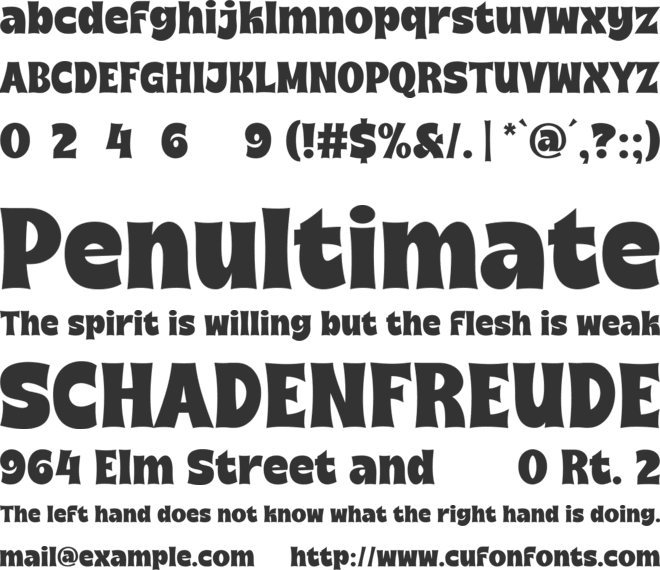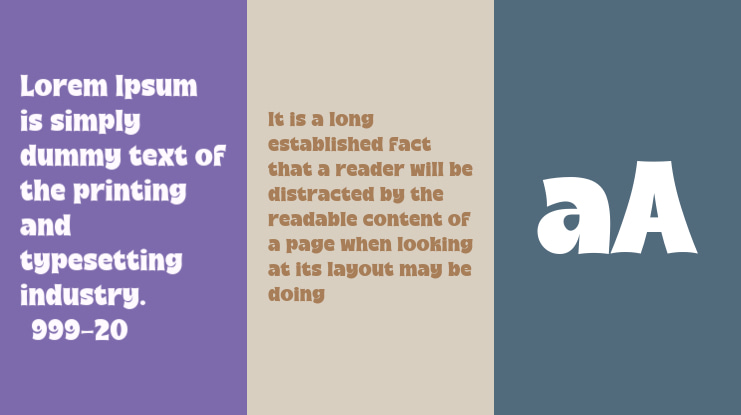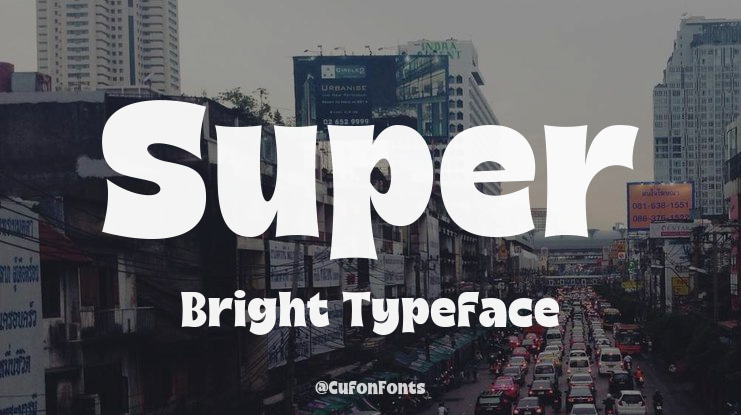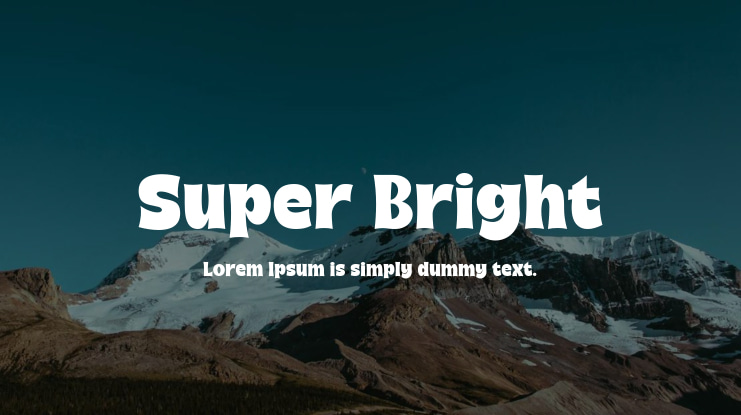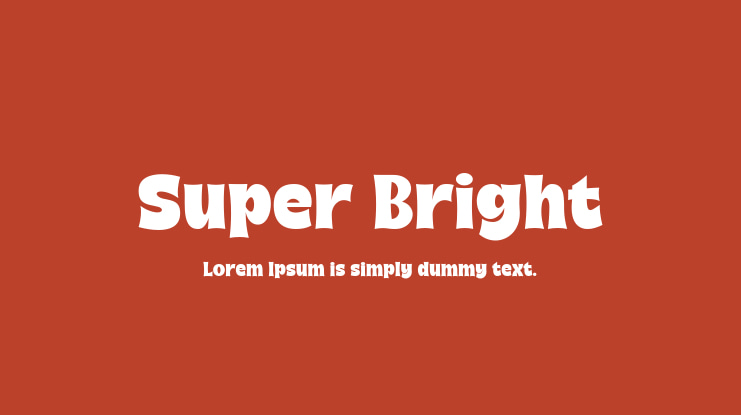
Super Bright Font
Super Bright is a boldly classic display font that exudes timeless boldness in its design. With thick and confident letterforms inspired by classic styles, Super Bright is sure to captivate attention.